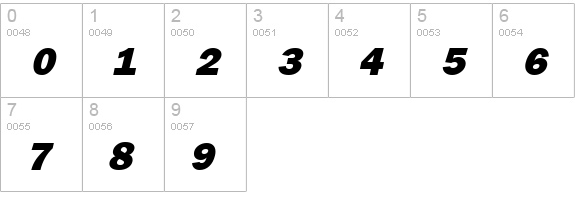
FrankfurtHeavy kursiv Font Details
FrankfurtHeavy kursiv is a bold and stylish typeface that exudes strength and sophistication. Its slanted design adds a touch of dynamism and modernity to any text or design project. The sharp lines and distinctive curves of FrankfurtHeavy kursiv make it a versatile choice for headlines, logos, and branding materials. What makes FrankfurtHeavy kursiv even more appealing is that it is available for free download at FontsMarket.com. This means you can easily access this unique and eye-catching font without any cost, making it a valuable addition to your font collection. Whether you're a designer, marketer, or content creator, FrankfurtHeavy kursiv offers a bold and impactful way to elevate your work and make a lasting impression.